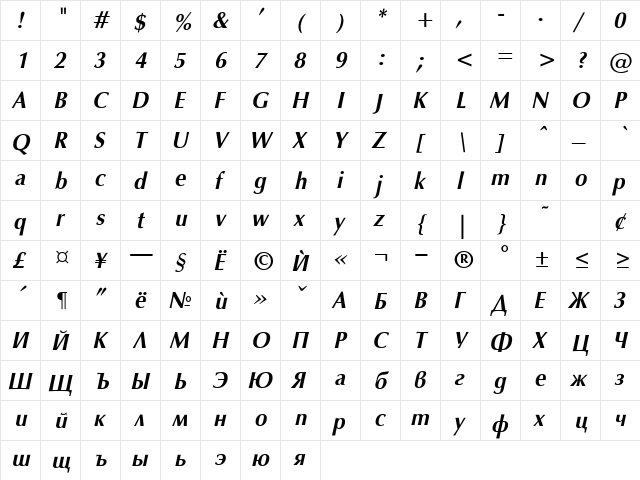
Opal Bold Italic
Design Context for Opal Typeface
Opal offers clean, dependable letterforms without strong stylistic allegiance, making it a practical choice for designers who need flexibility. Its italic angle brings a sense of urgency and motion to the letterforms. The heavy weight commands attention and anchors typographic hierarchies.